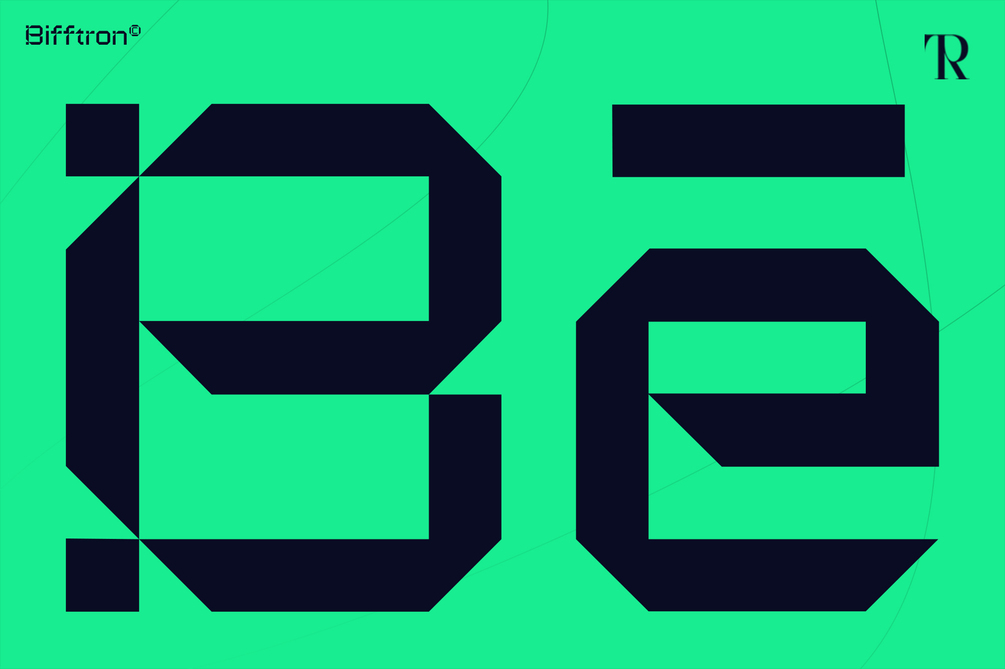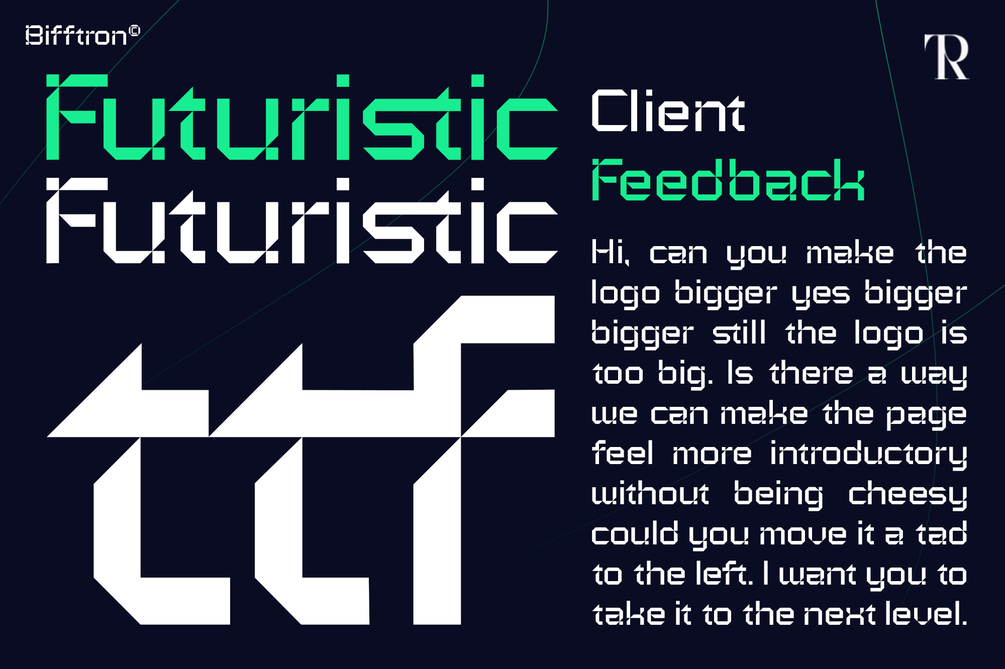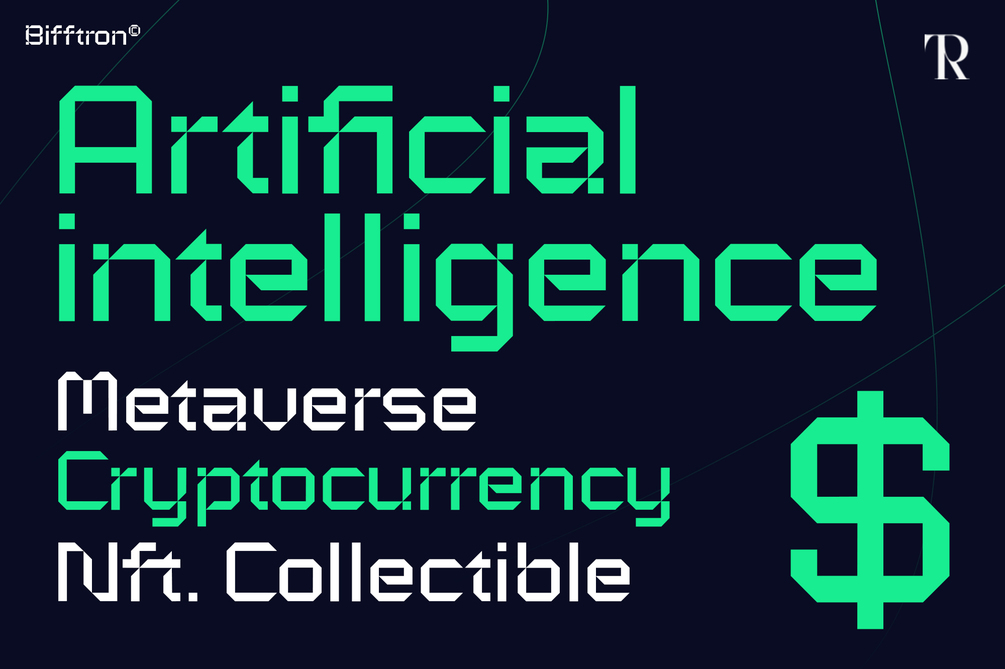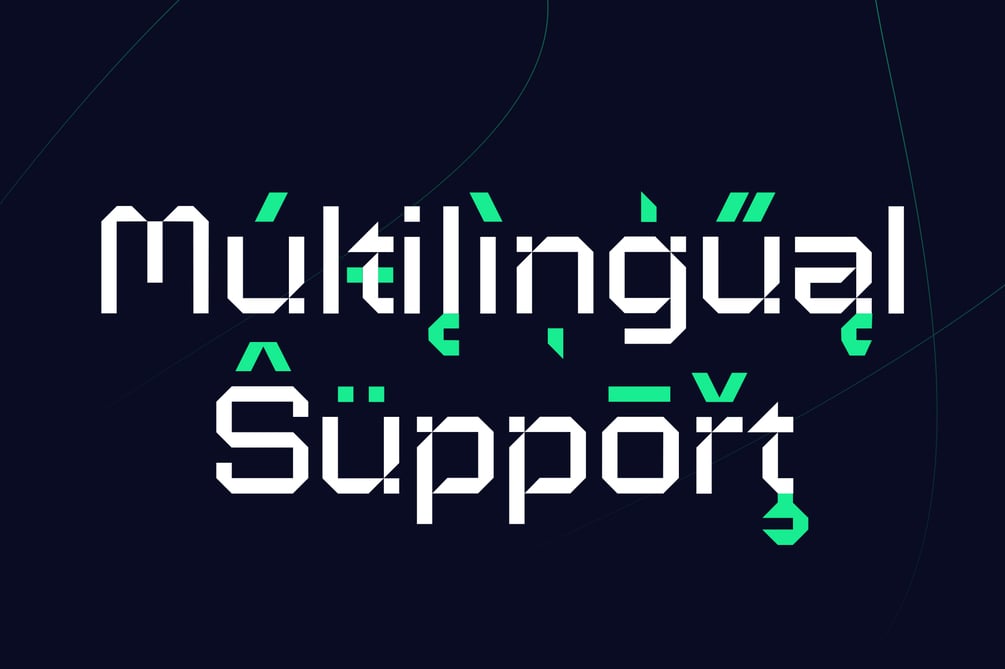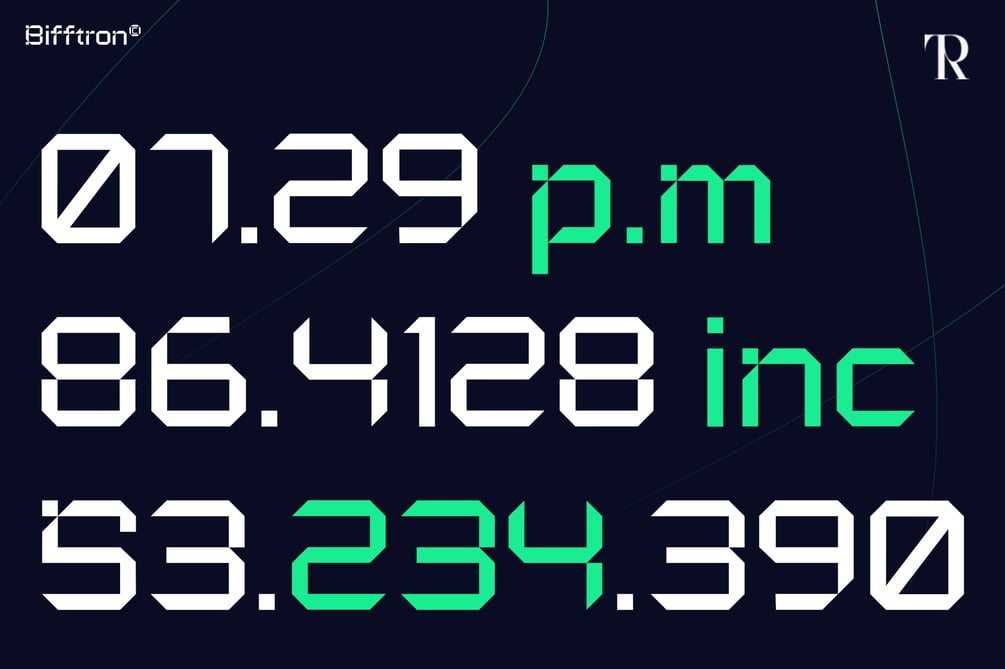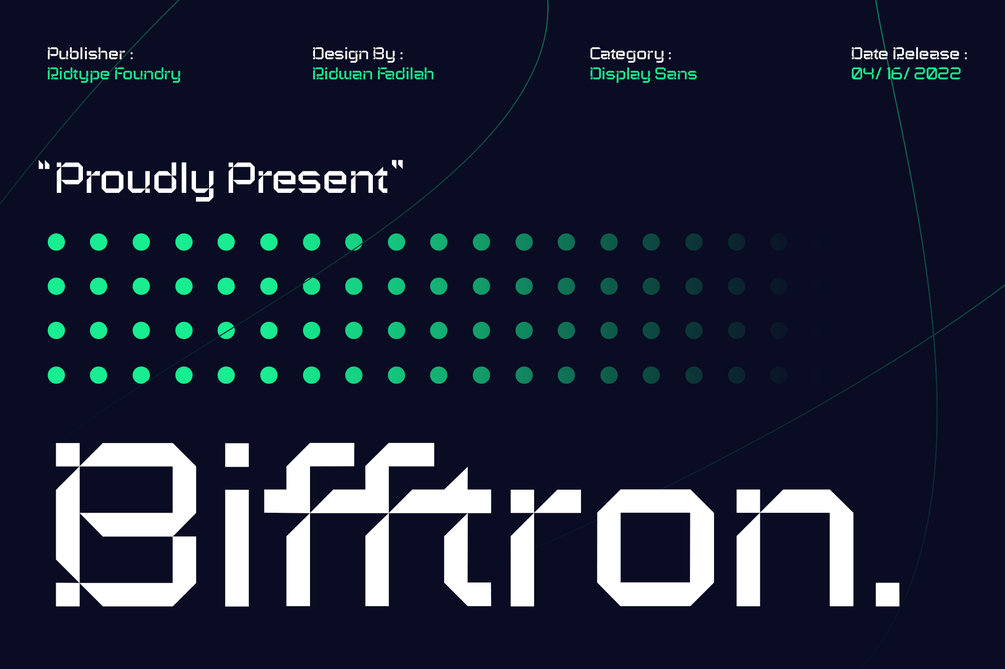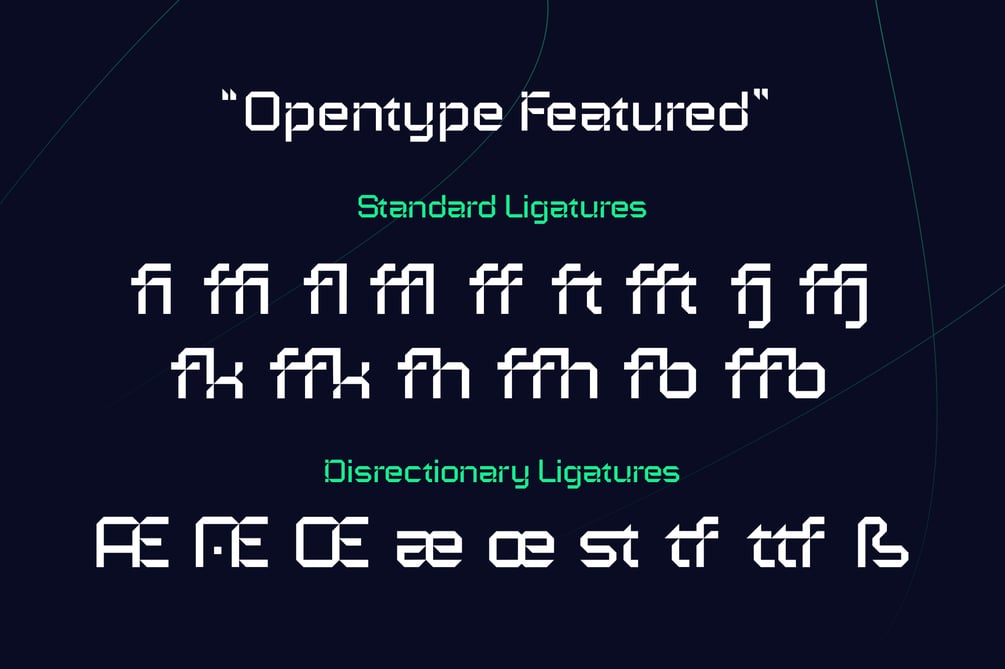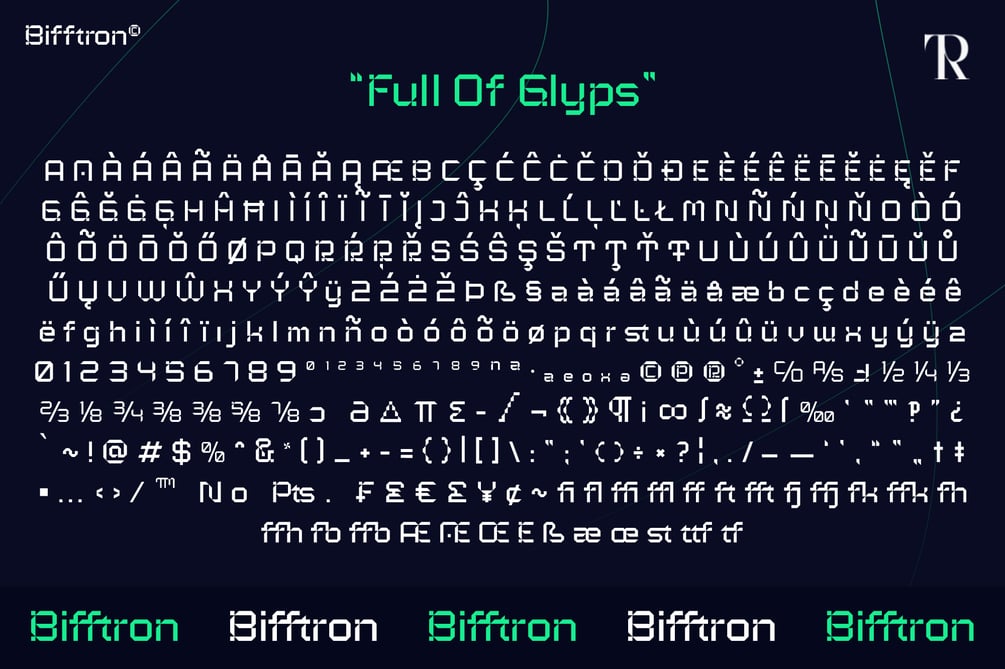
Bifftron
Bifftron is a futuristic modern Sans Serif Style, and this font is available for Opentype Featured such as Ligature and Alternate.
And Bifftron font supports other language/ multilingual support, also suitable for use in Technology, Printing/ Broadcasting Industry.
Details Font : Futuristic Sans Serif